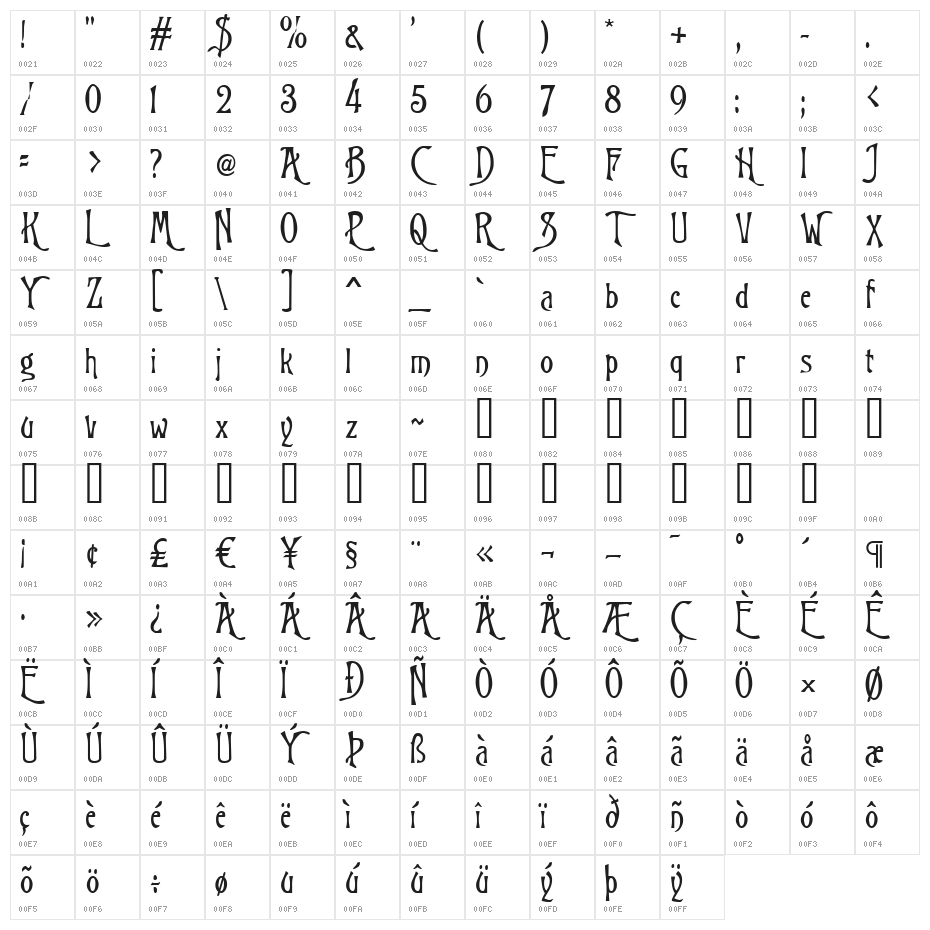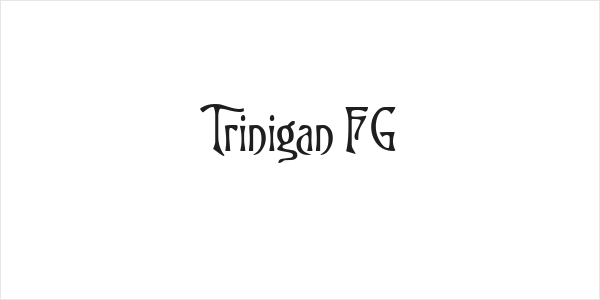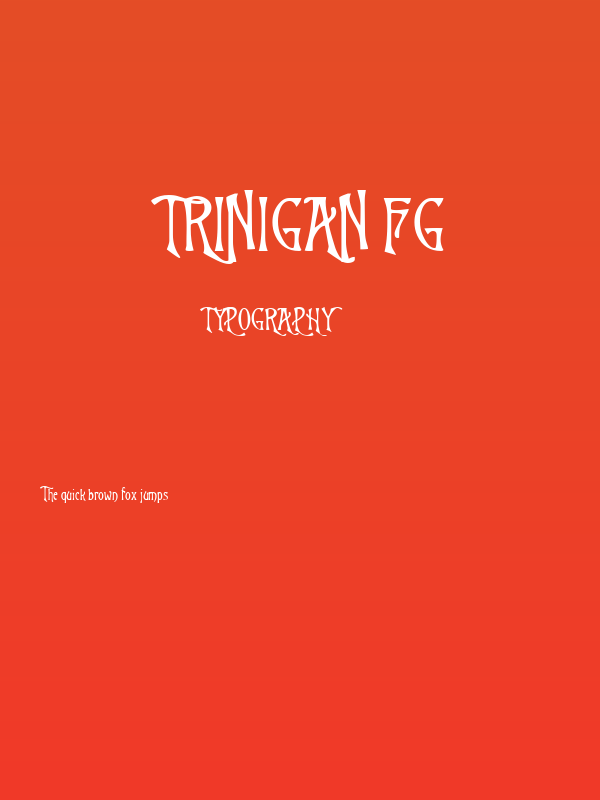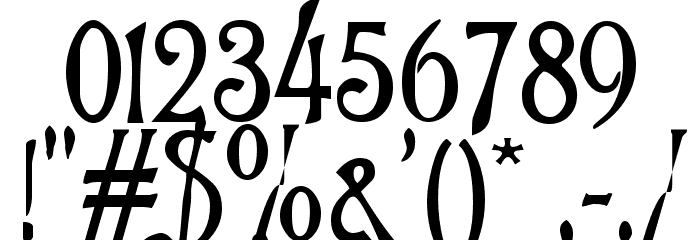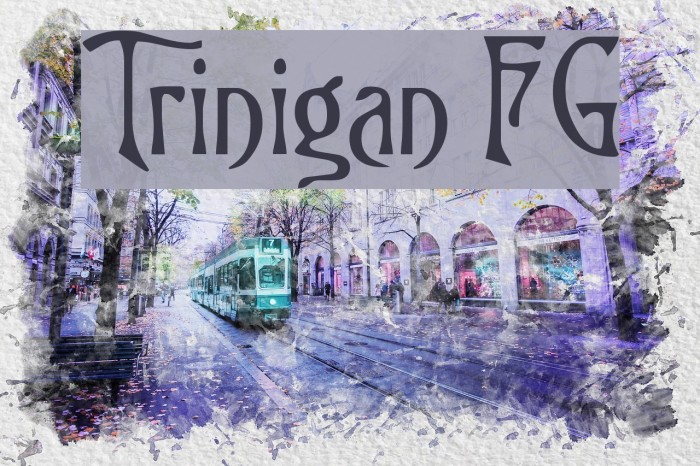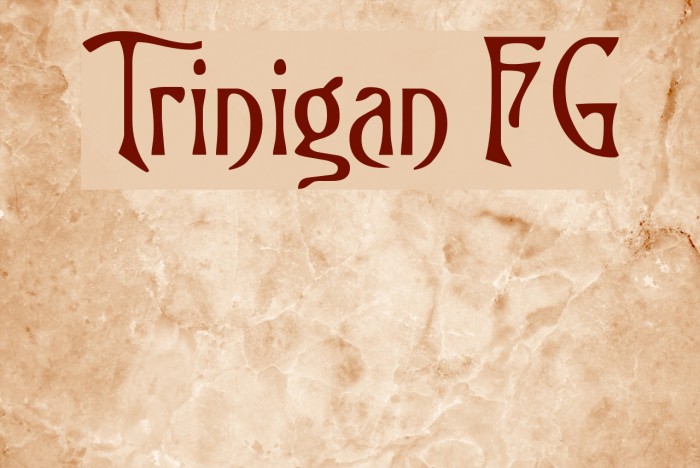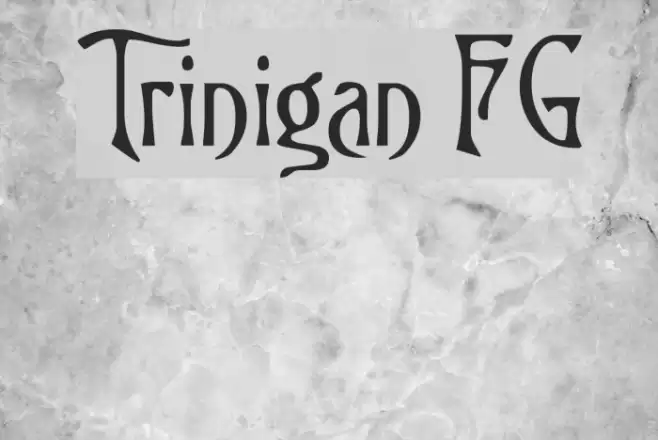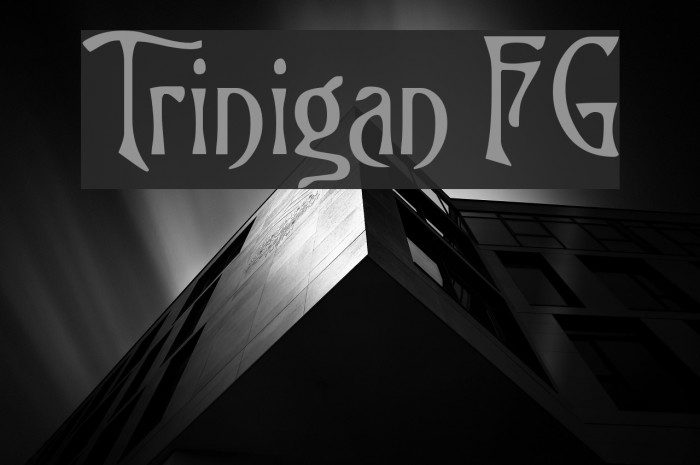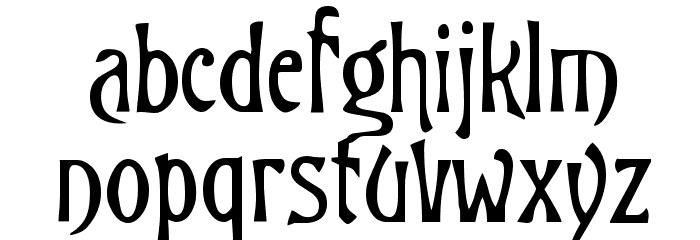
Trinigan FG Font
Trinigan FG Description
This font features a whimsical and artistic style, characterized by its playful and exaggerated letterforms. The uppercase letters exhibit a unique blend of sharp angles and flowing curves, creating a dynamic and eye-catching appearance. The lowercase letters maintain this playful aesthetic, with some characters having distinctive tails and loops that add to the font's charm. The numerals are equally expressive, with varying stroke widths that contribute to the font's lively personality. Special characters are designed with the same creative flair, making this font suitable for projects that require a touch of fun and creativity.